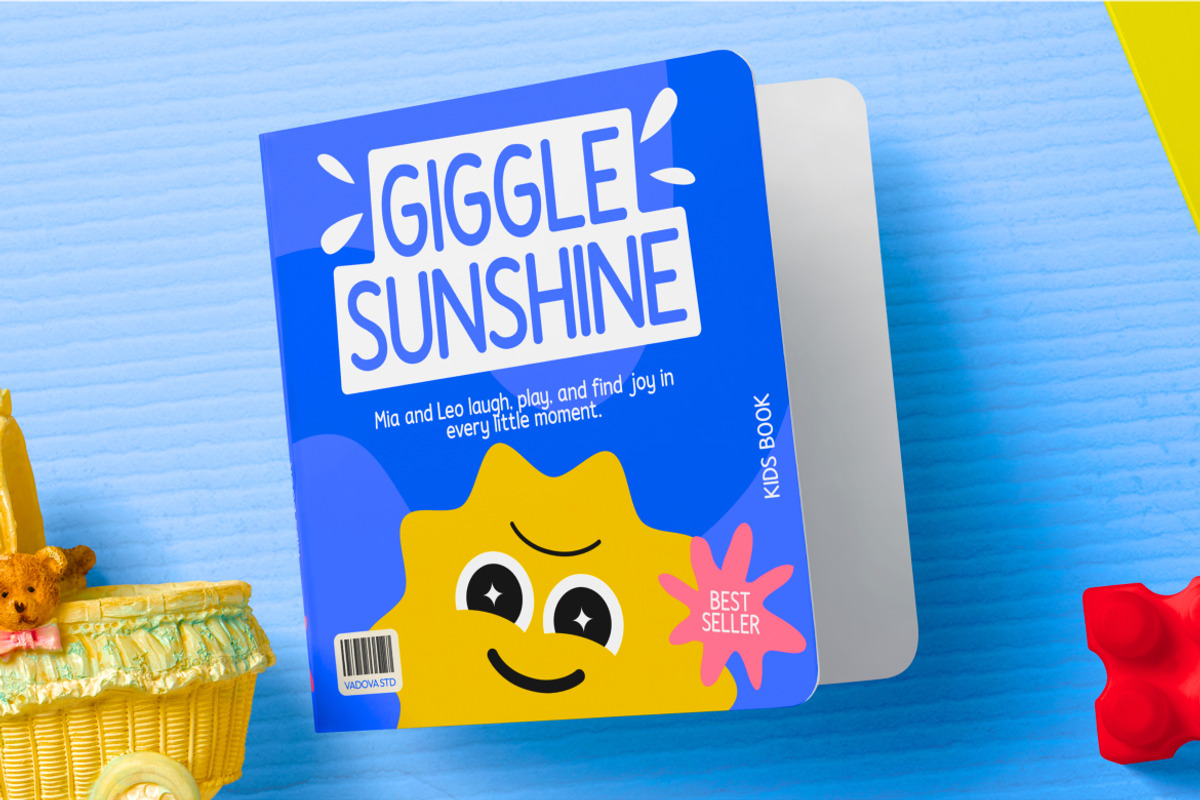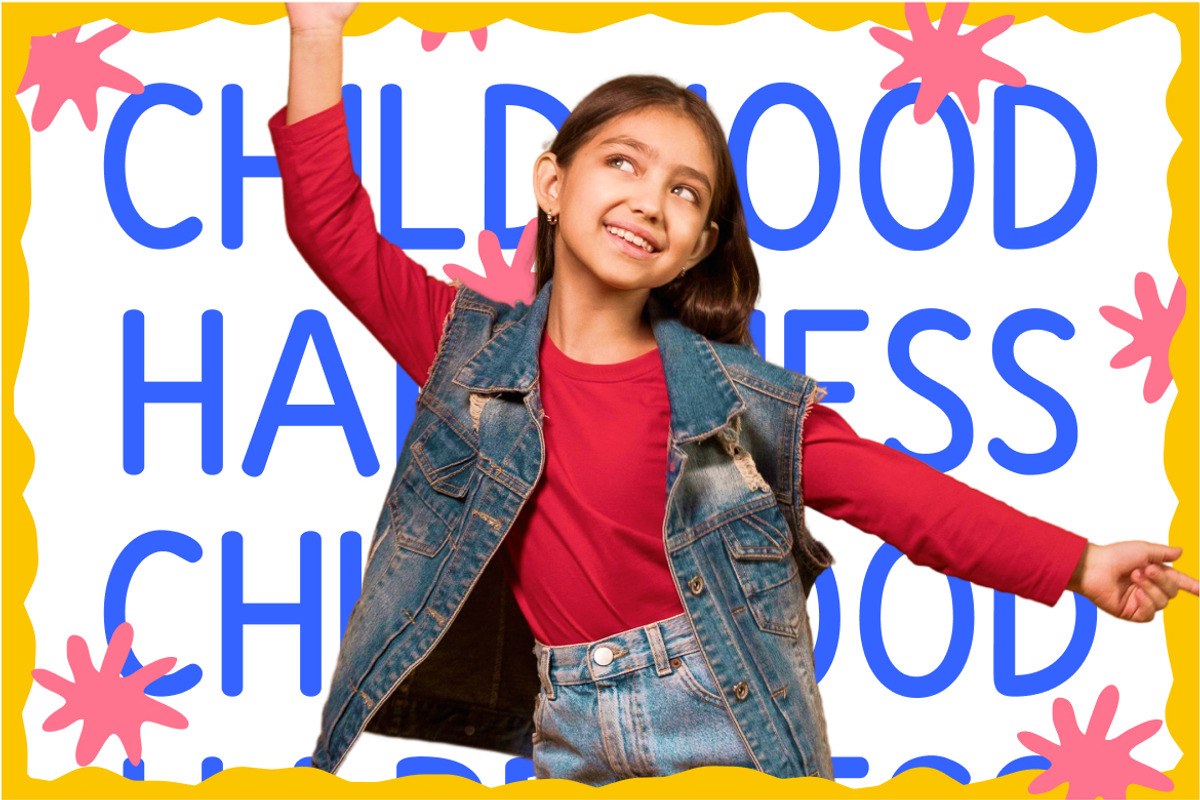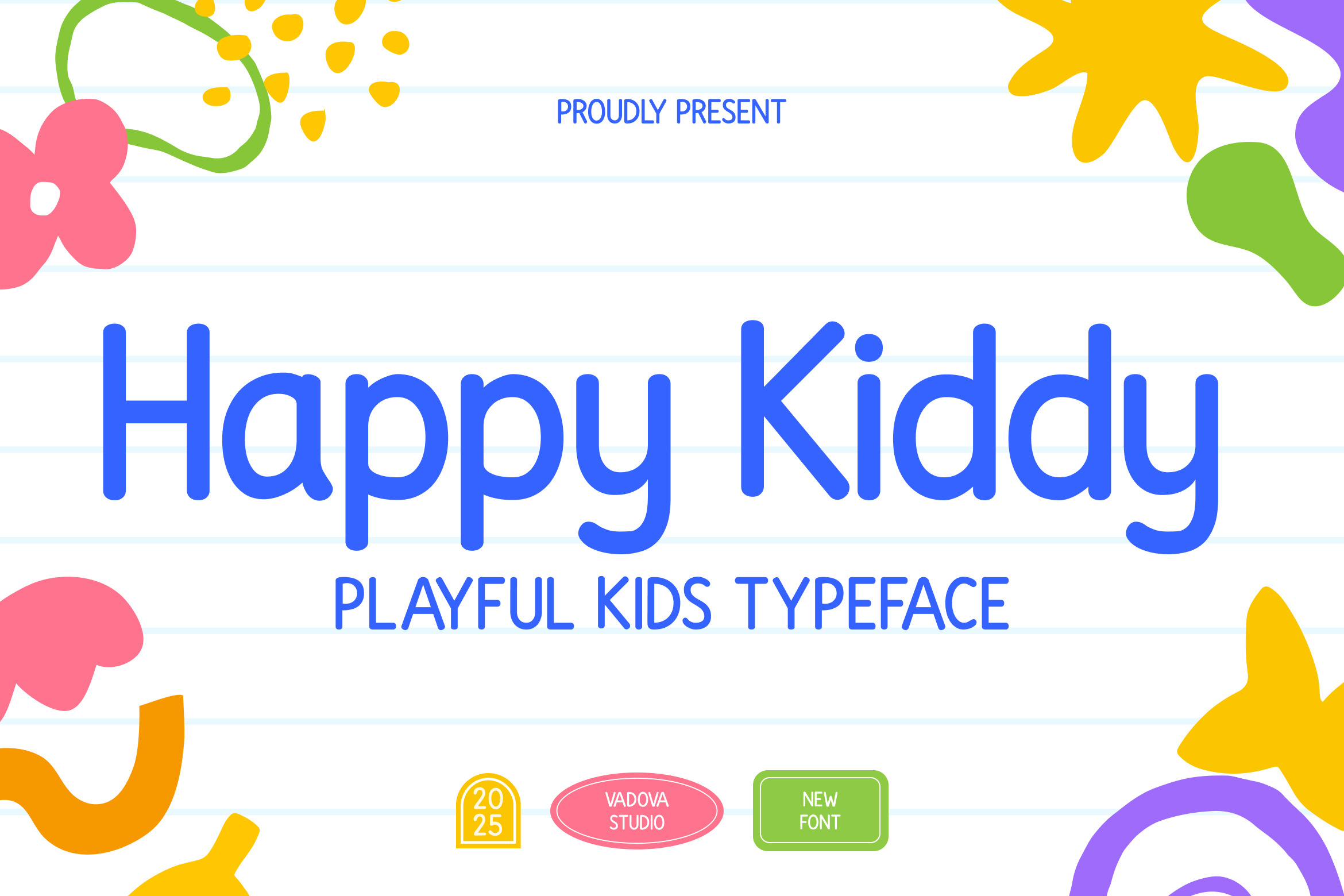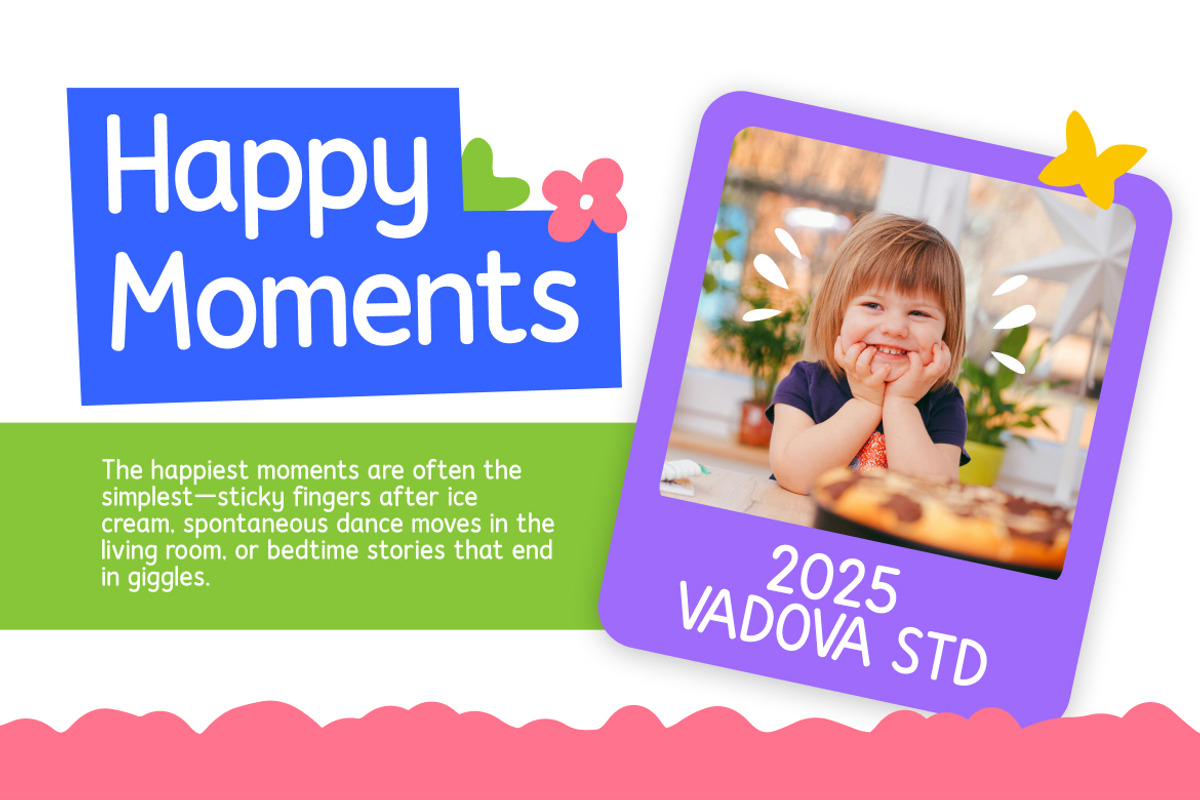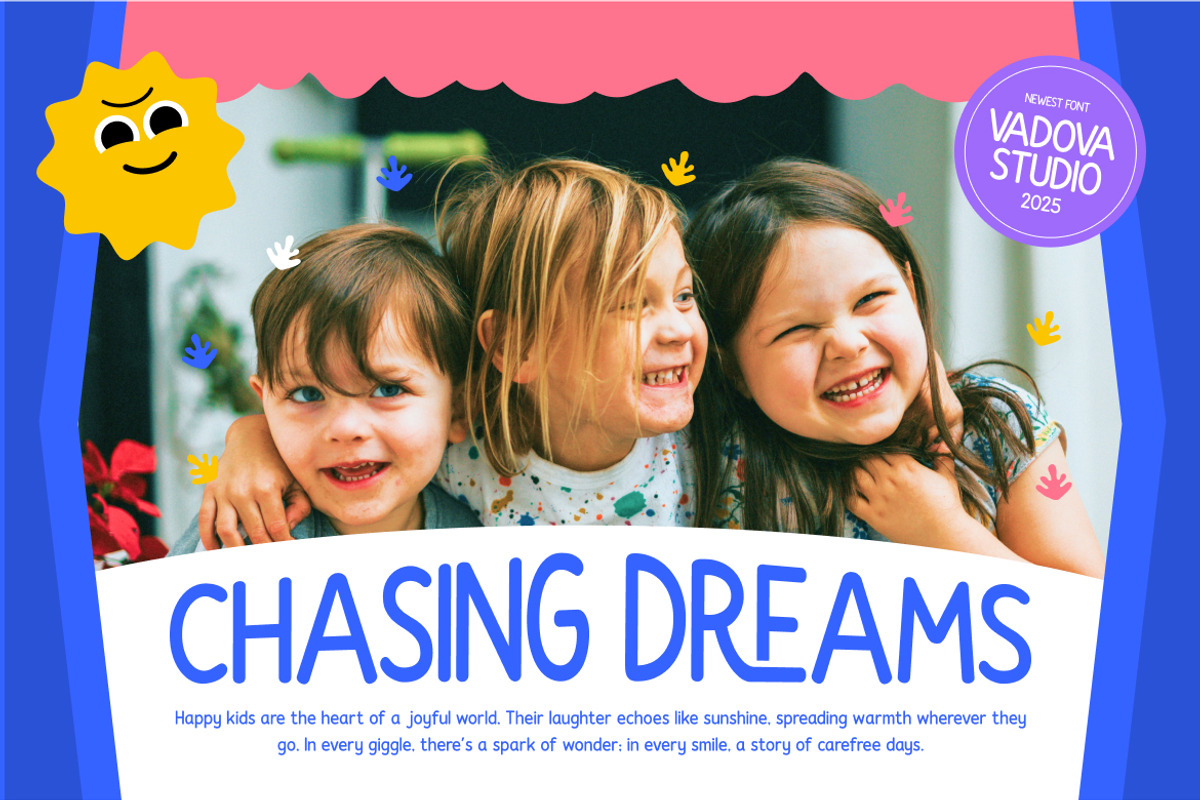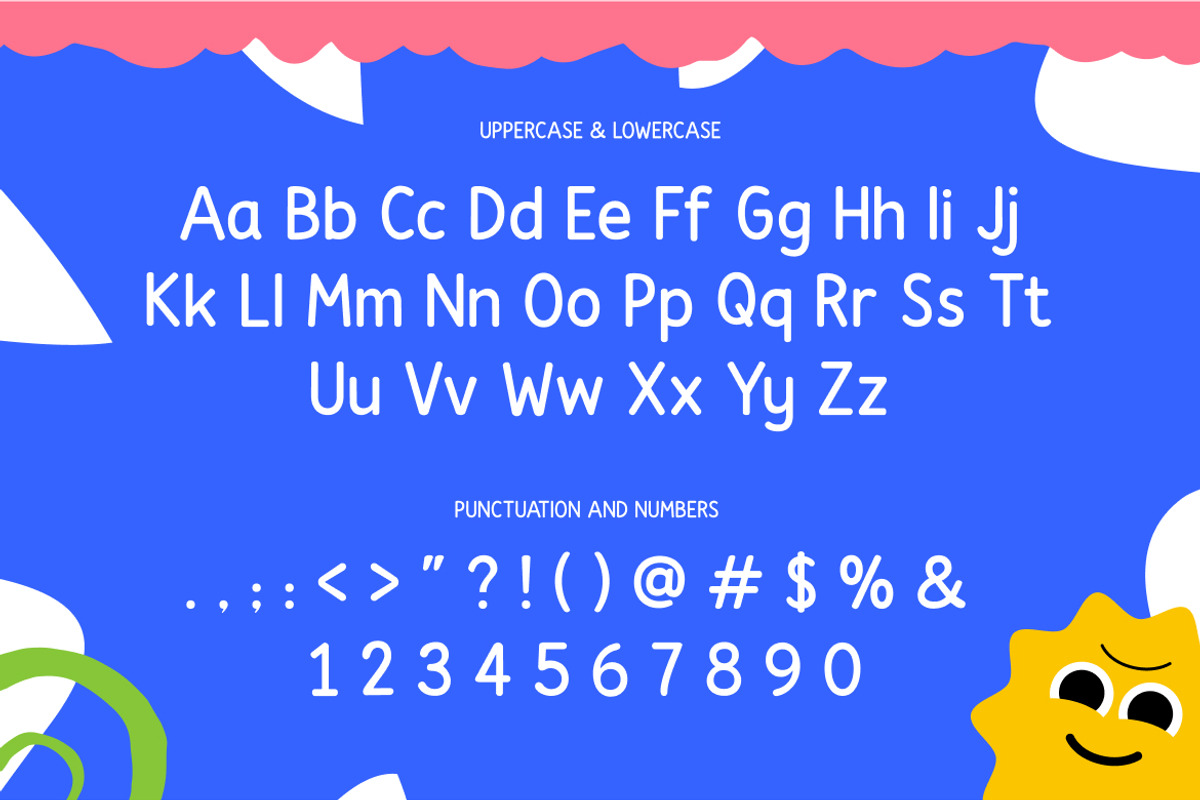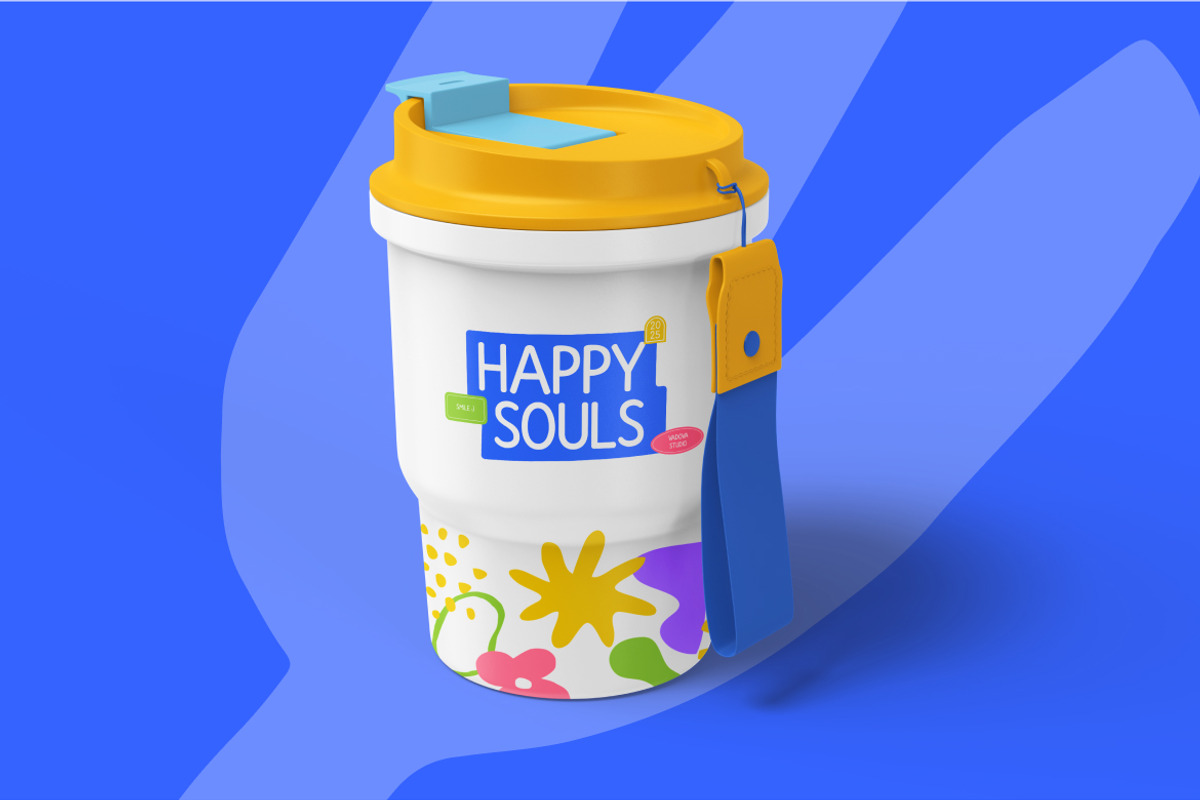
Happy Kiddy Playful Kids Font
Happy Kiddy is a cheerful, light-hearted rounded sans serif typeface designed to inspire creativity, imagination, and a sense of joy in every character. With its soft curves, friendly proportions, and slightly bouncy rhythm, this font is crafted to connect with young audiences and those who design for them. From educational materials and children's storybooks to playful branding and vibrant social media content.
The spirit of Happy Kiddy is rooted in fun and friendliness. Its clean letterforms are approachable without being overly stylized, making it suitable for a wide range of projects that require a joyful yet professional aesthetic. Designers will appreciate its adaptability in everything from classroom posters and educational worksheets to children’s product packaging, mobile apps, birthday.
- Rounded sans serif style with soft, playful geometry
- Friendly proportions and subtle bounce in baseline for a joyful tone
- Smooth terminals and open counters for enhanced readability
- Uniform stroke weight for visual consistency and simplicity
- Optimized spacing and clarity for both display sizes and small text
- Children’s book covers, storybooks, and early learning materials
- Educational posters, worksheets, and classroom resources
- Kids’ birthday invitations, party supplies, and festive decor
- Toy packaging, kids’ apparel labels, and playful product branding
- Social media graphics or blog headers for parenting or childcare content
Happy Kiddy is designed to make young audiences smile with fun, readable shapes